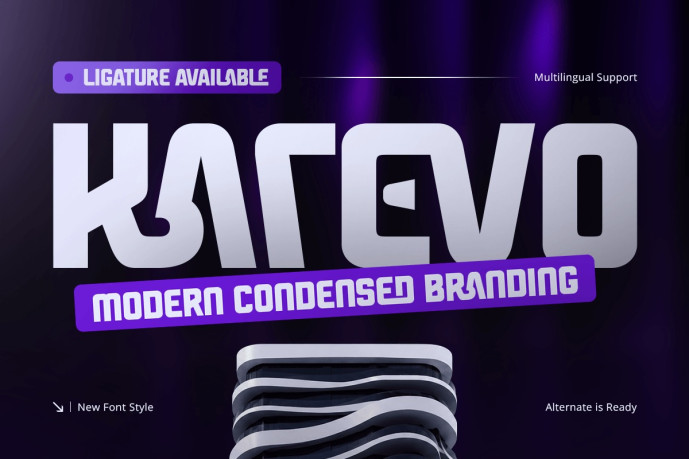
Karevo – Modern Condensed Branding Font
Karevo – Modern Condensed Branding Font is a modern condensed sans serif font designed for professional branding, logo creation, corporate identity systems, and contemporary visual communication. Inspired by clean minimalist typography and modern business aesthetics, Karevo delivers a refined and space-efficient design that helps brands create a bold, memorable identity.
Featuring condensed letterforms, balanced proportions, and a sleek modern structure, Karevo offers exceptional readability while maximizing visual impact. Its narrow design is ideal for logos, headlines, packaging, editorial layouts, marketing materials, and digital branding where strong typography and efficient spacing are essential.
Whether you’re building a startup identity, creating a corporate logo, designing product branding, or developing marketing assets, Karevo provides the flexibility and professionalism needed to elevate your brand across every platform.
Karevo Font Features
Character Set: Uppercase, lowercase, numbers, symbols, and punctuation
Modern condensed letterforms optimized for branding and logo design
OpenType features ready to enhance your design needs
Karevo is Perfect For
Corporate branding and business identity systems
Modern logo and logotype design
Startup and technology branding
Packaging and product branding
Editorial headlines and magazine layouts
Website headers and digital brand assets
Marketing materials and business presentations
Contemporary display typography
Whether you’re creating a professional logo, developing a modern business identity, launching a startup brand, or designing high-impact marketing materials, Karevo delivers the clarity, versatility, and bold presence of a modern condensed branding font built for contemporary creative projects.